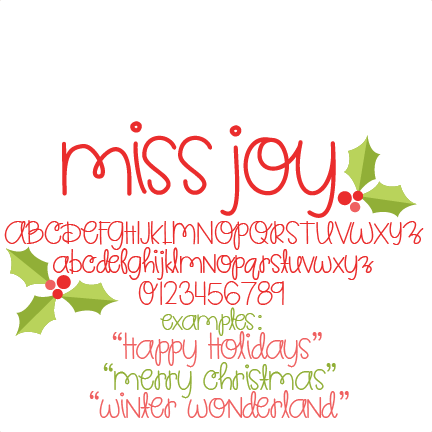
Miss Joy Font
This sans serif font contains all uppercase, lowercase letters, punctuation, and numbers.
Perfect for Christmas cards, scrapbooking, and other paper crafts!